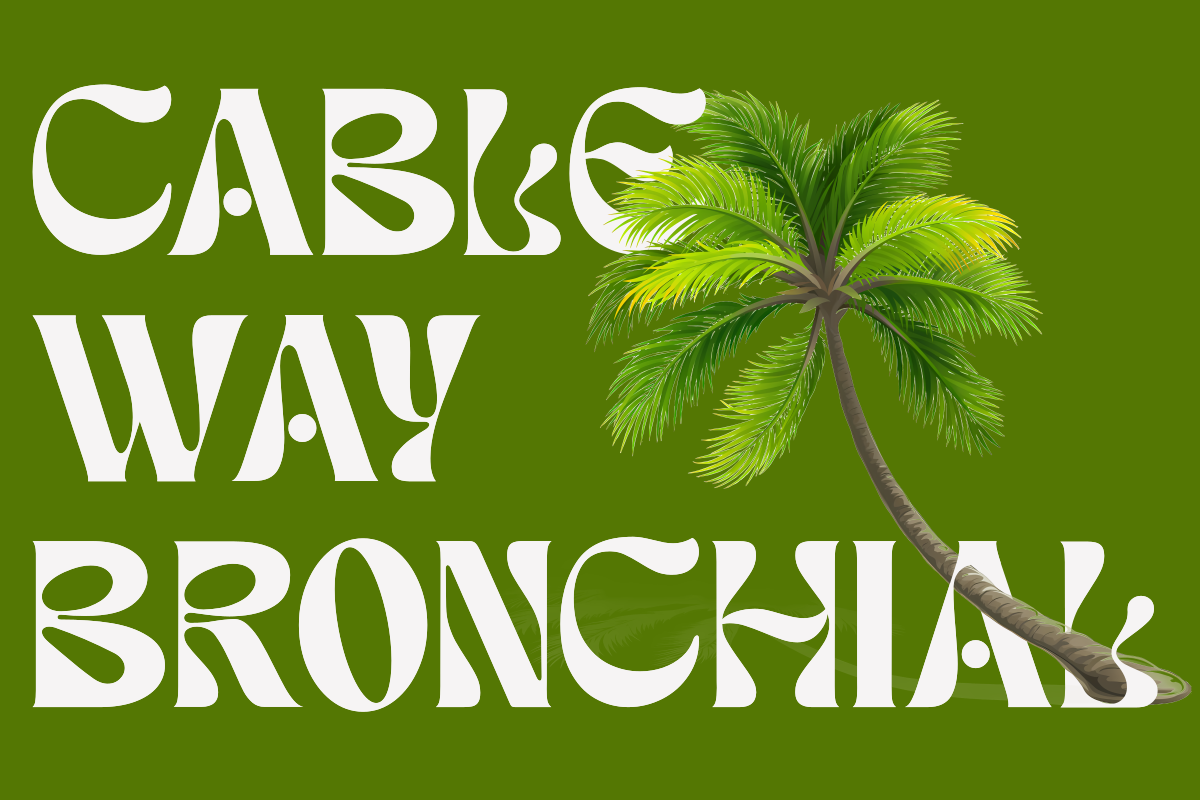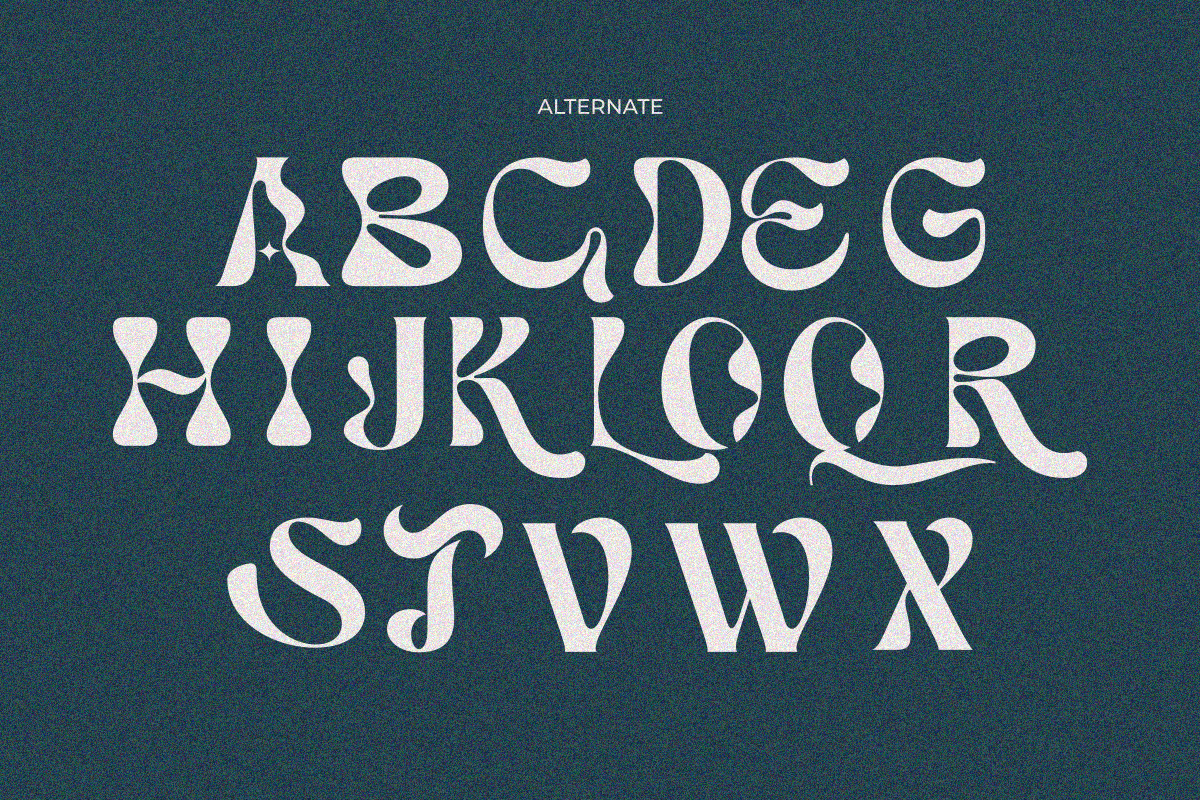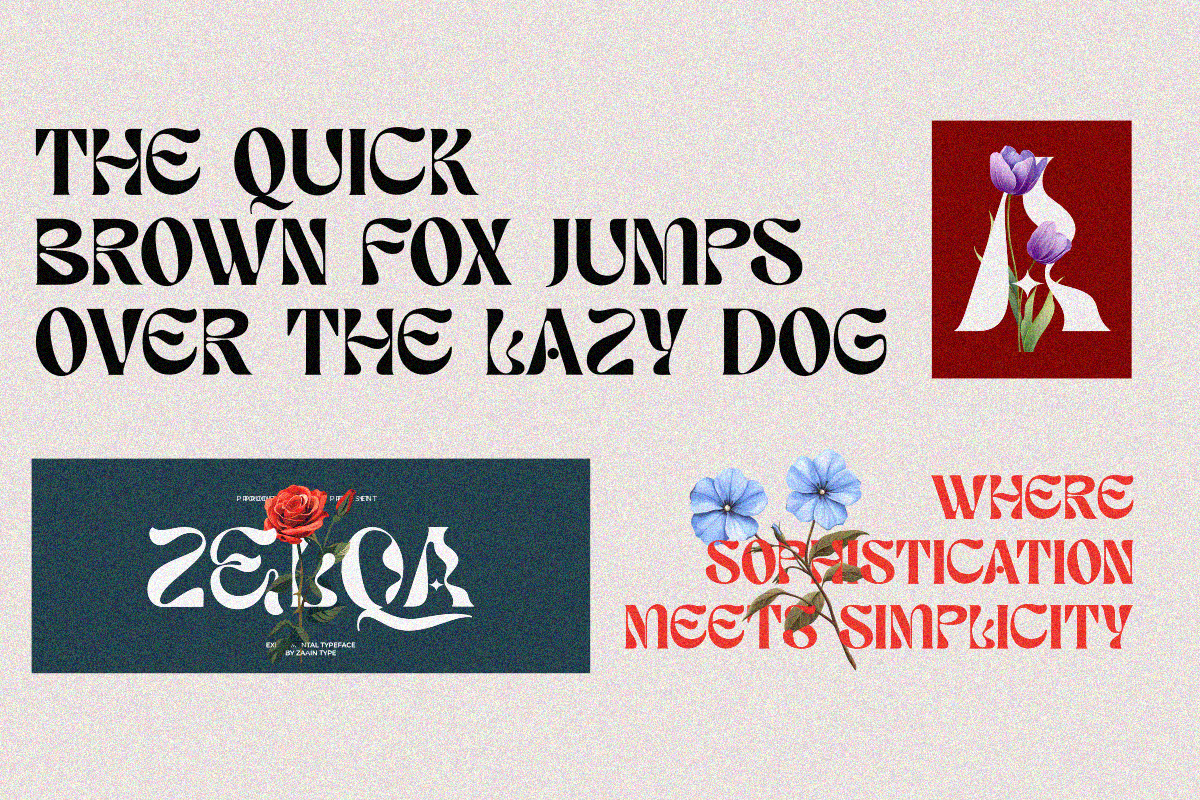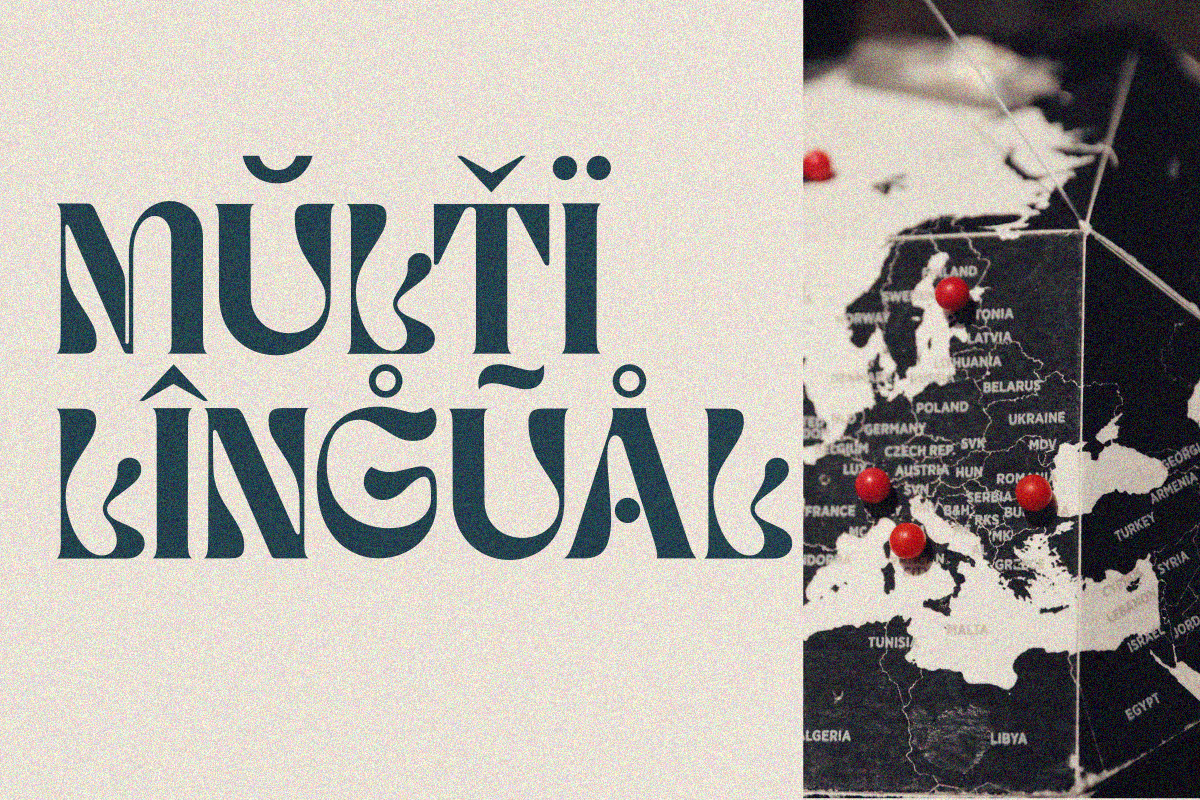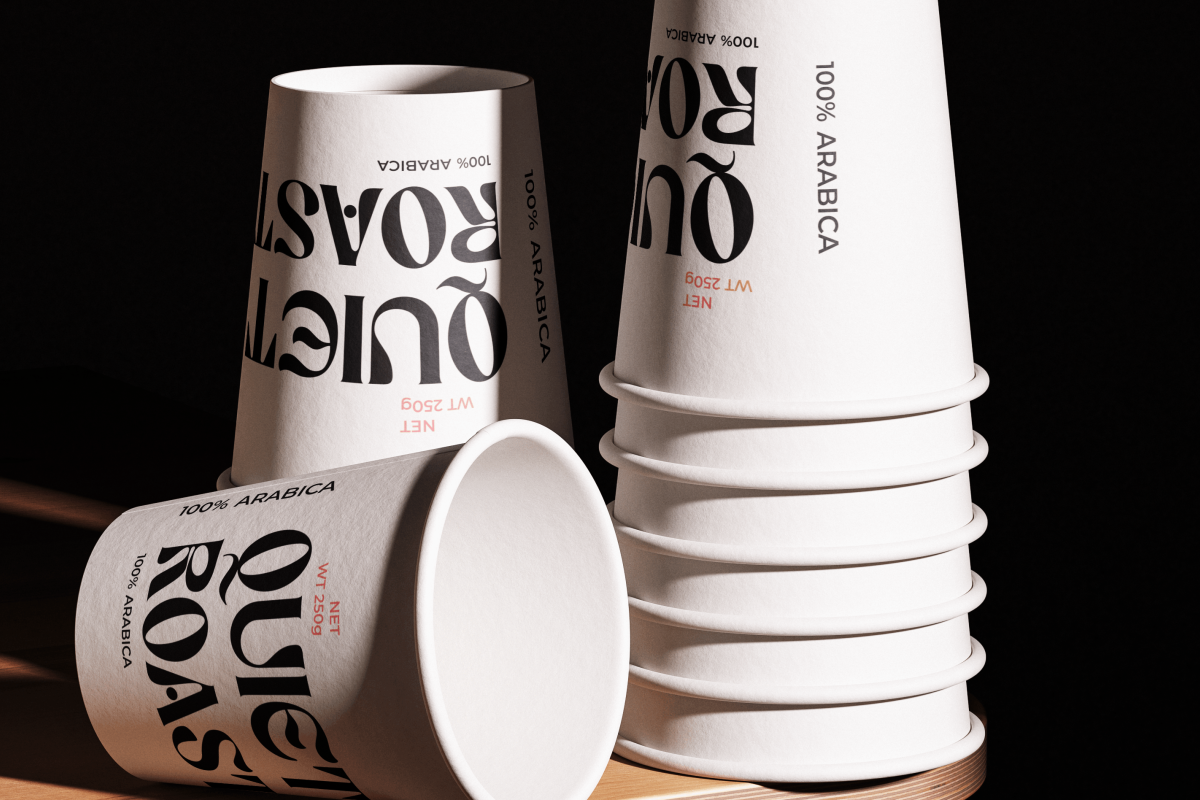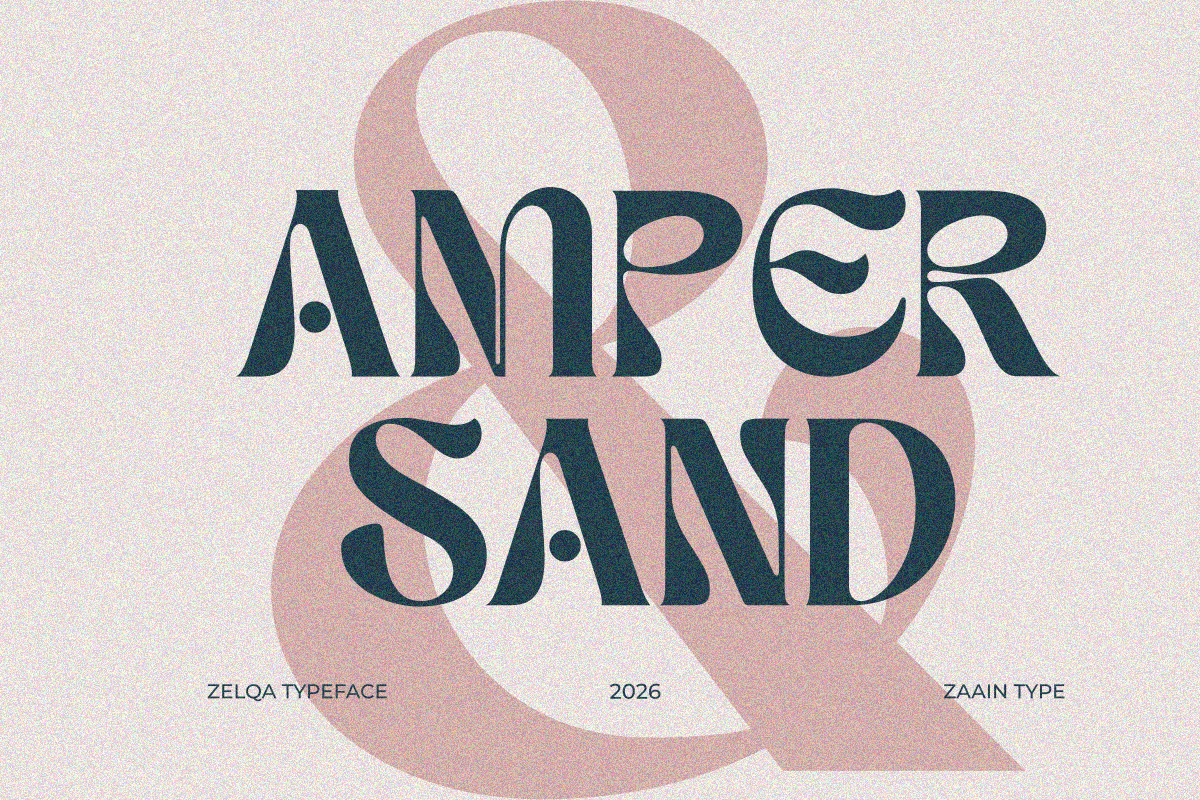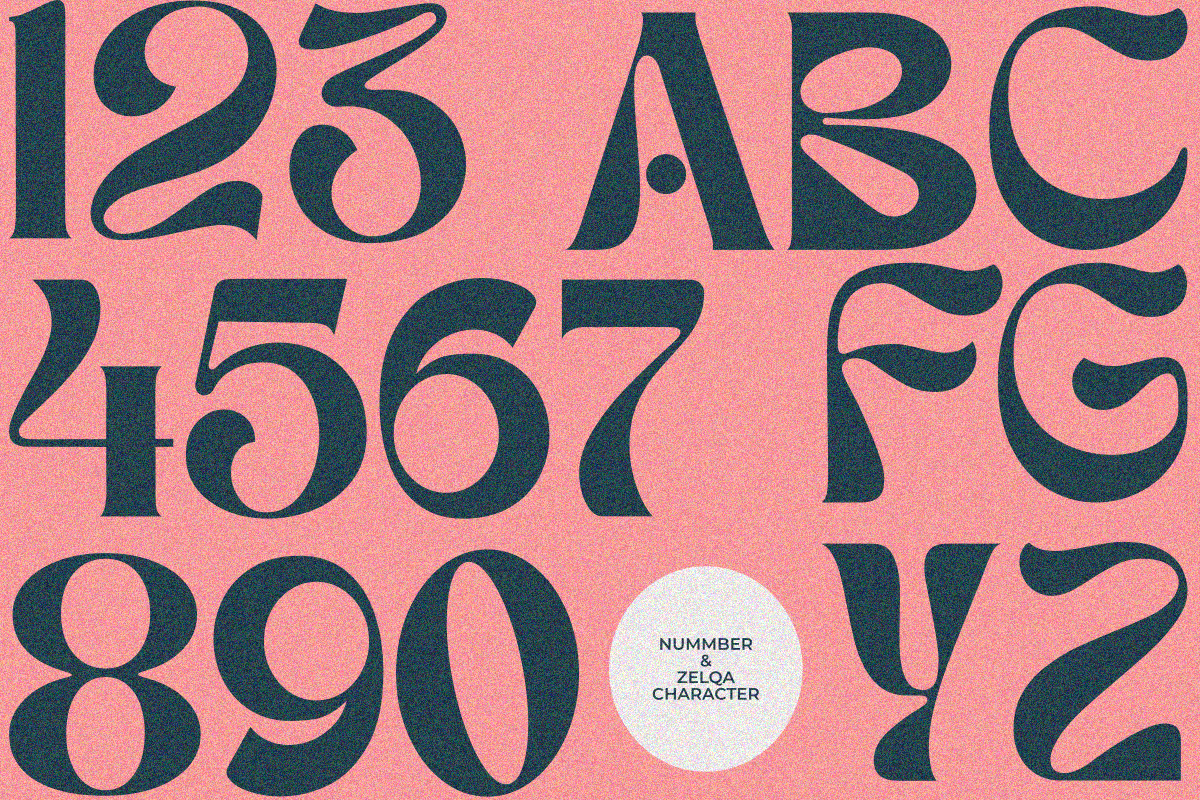
Zelqa
Zelqa is an experimental typeface that pushes the boundaries of conventional design. With its unconventional shapes, dynamic contrasts, and unexpected letterforms, Zelqa delivers a bold visual statement that stands out in modern creative projects. Perfect for branding, editorial layouts, posters, and artistic compositions, this font embraces freedom and innovation, allowing designers to explore new visual expressions. Zelqa is not just a typeface—it’s a creative voice for those who dare to be different